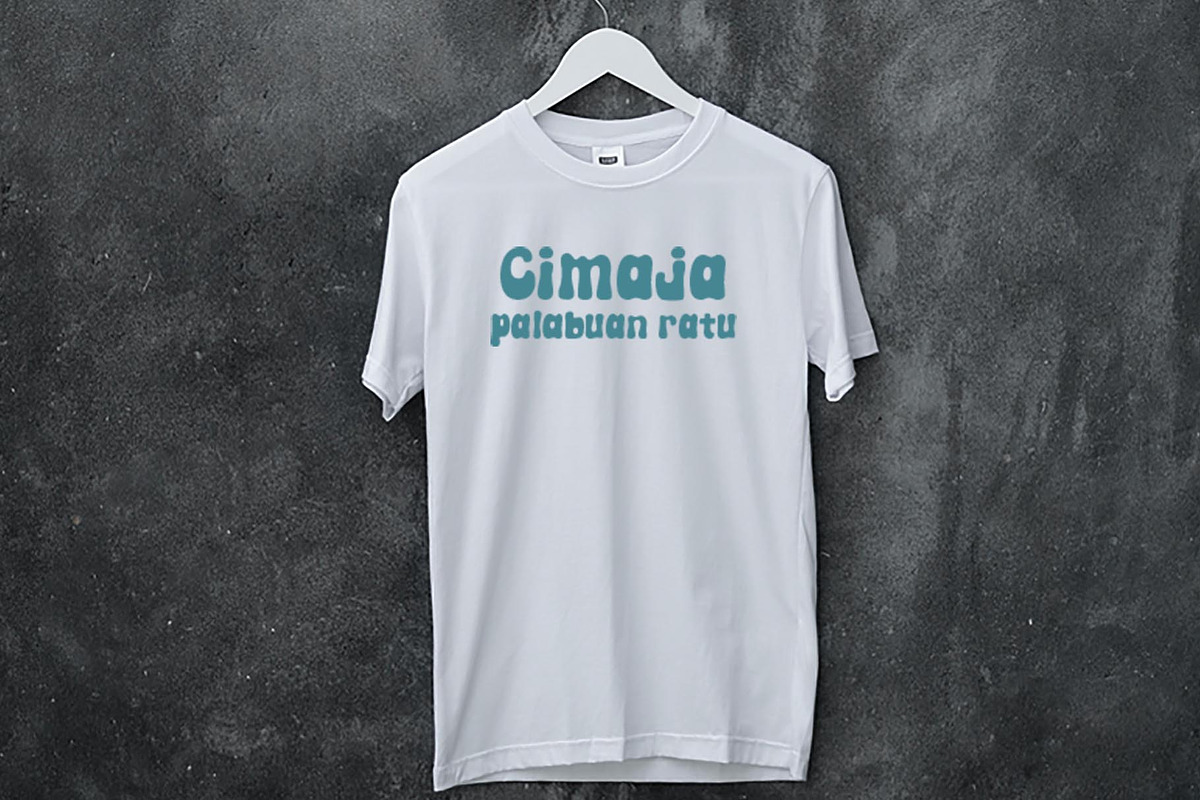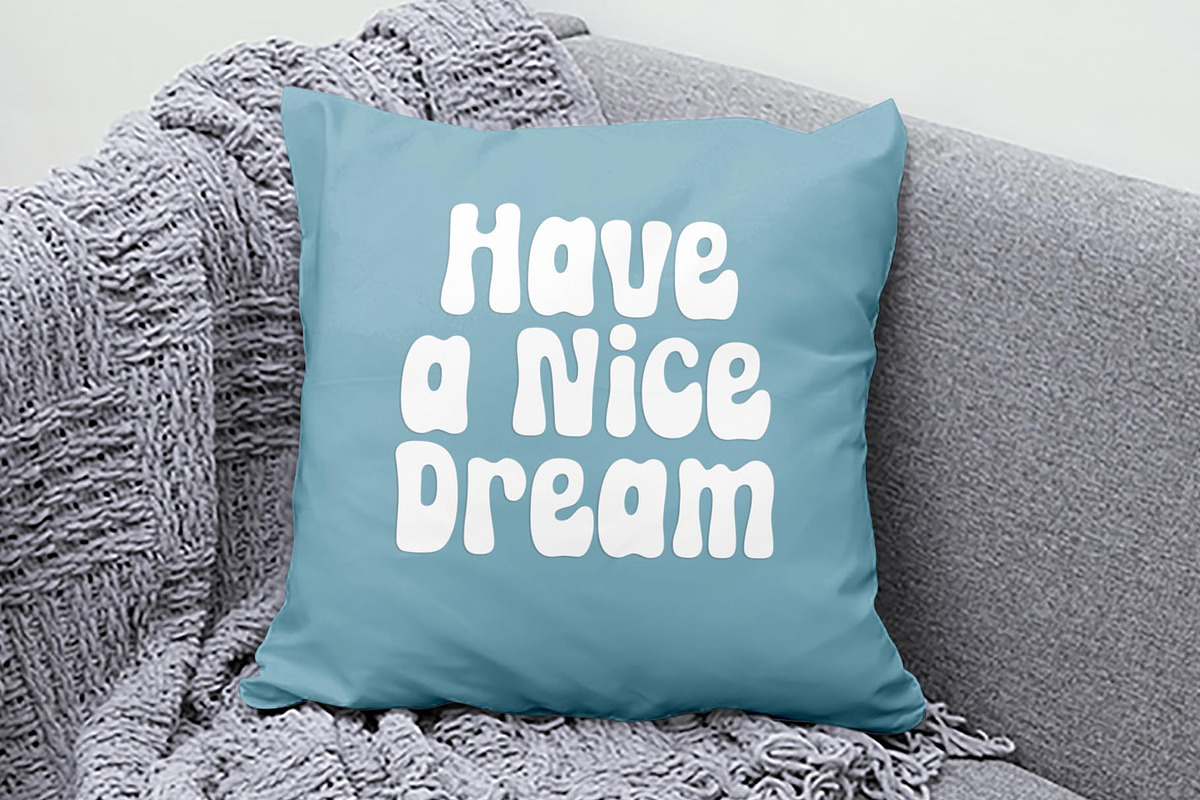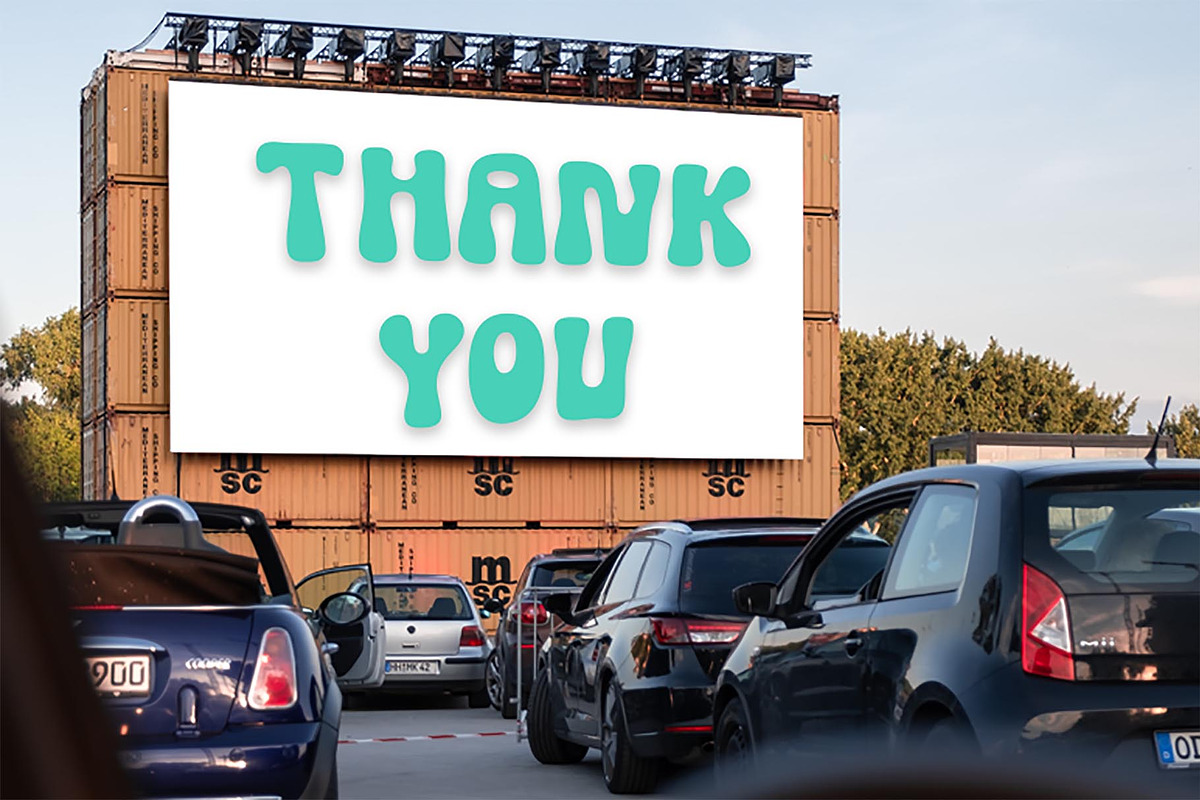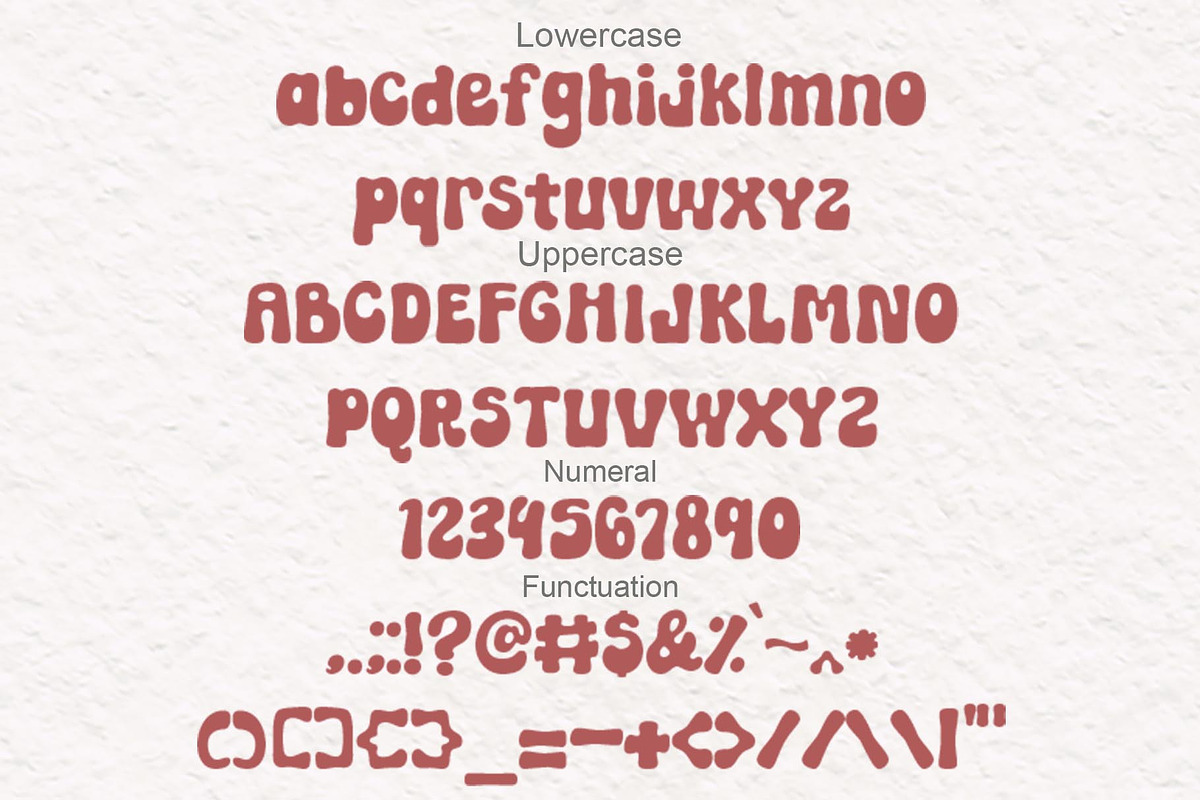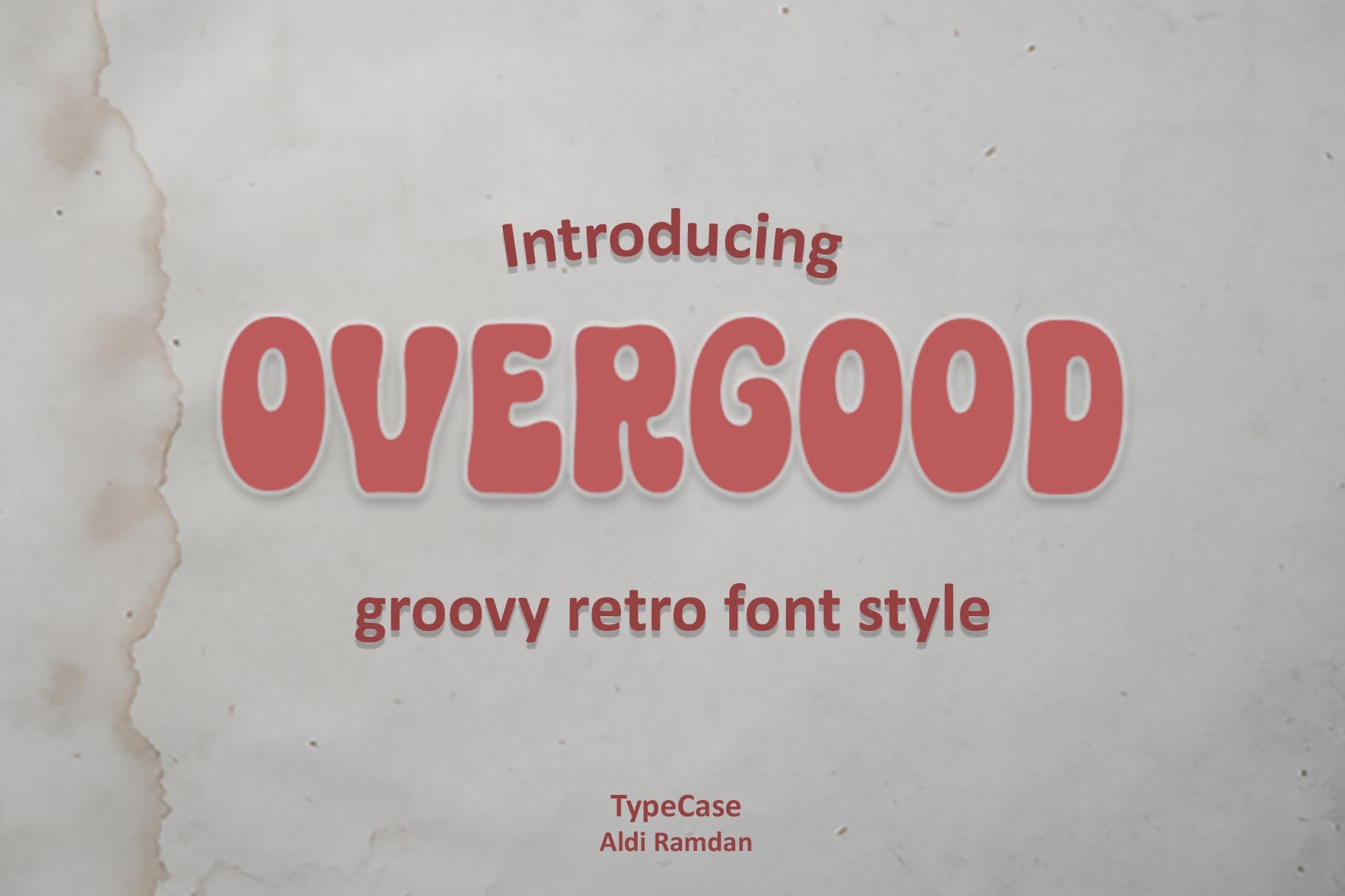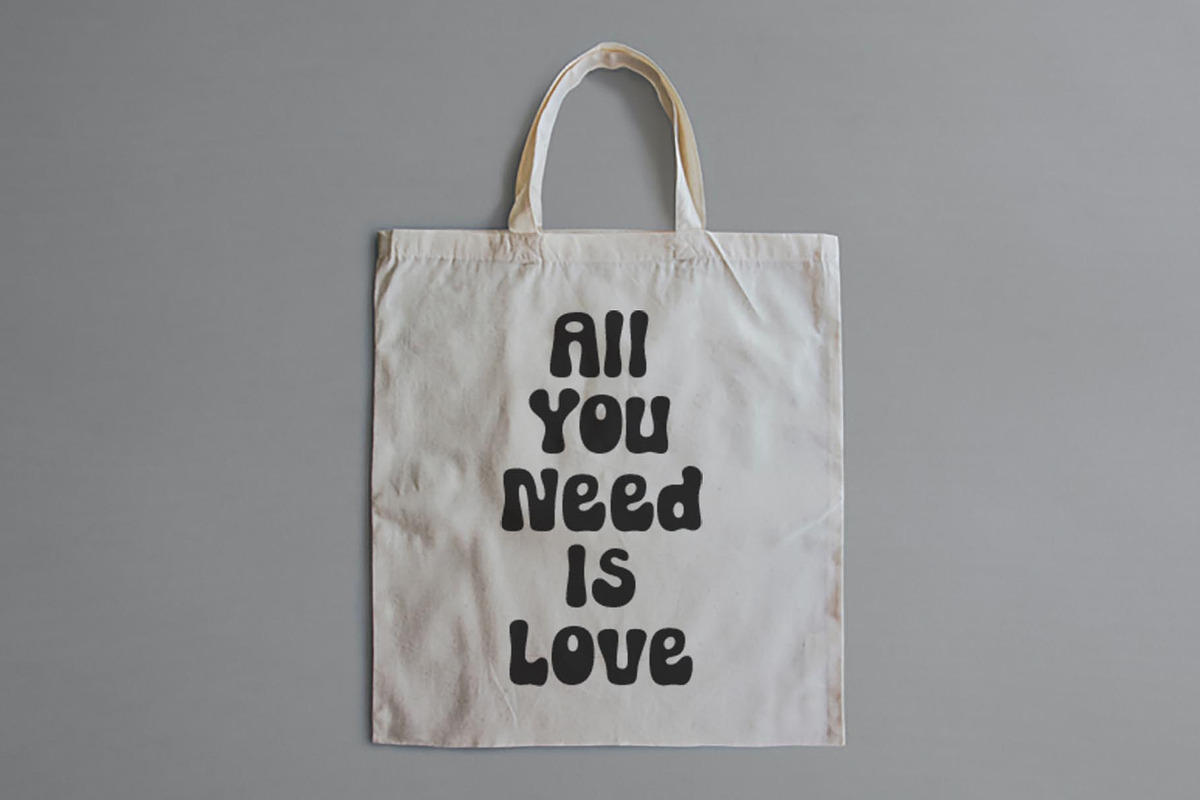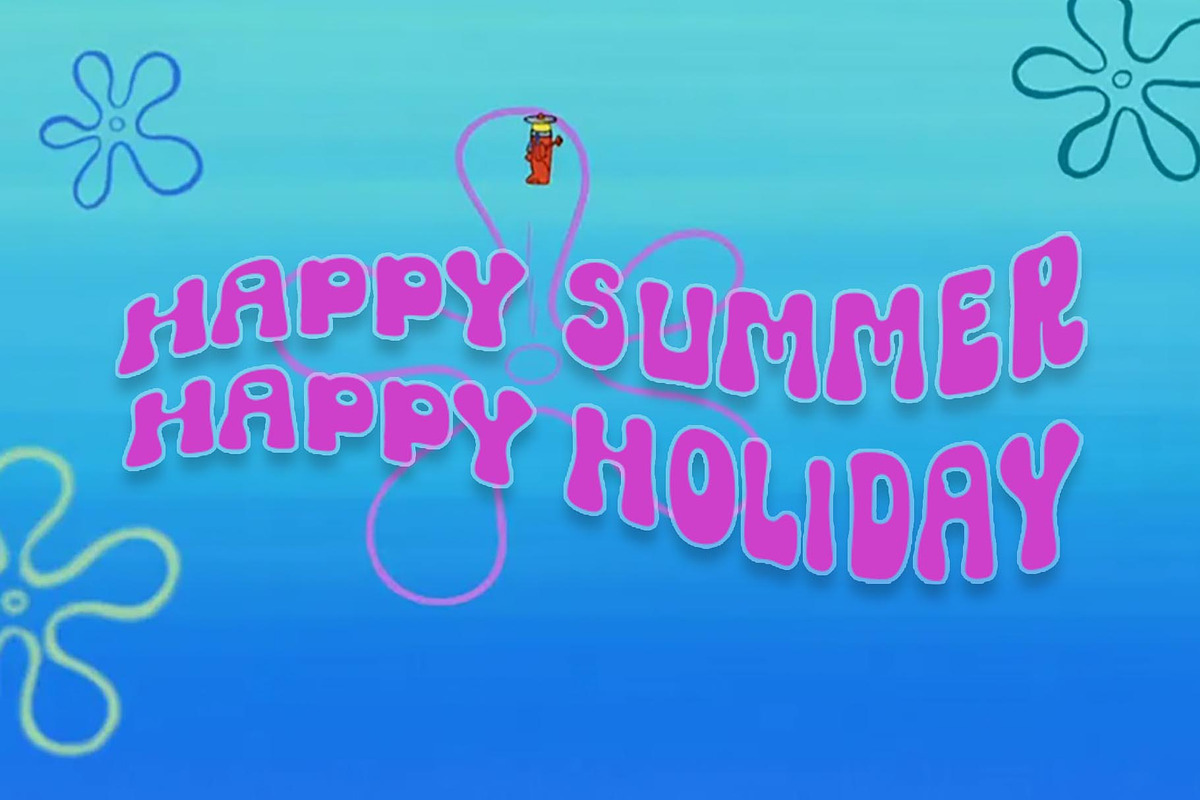
Over Good groovy font
Over Good is a font that provides an extraordinary retro vintage aesthetic that makes you nostalgic. Use this display font to add a special retro touch to any design idea you can think of!. Expertly designed to become a true favorite, this font has the potential to take your every creative idea to the highest level!